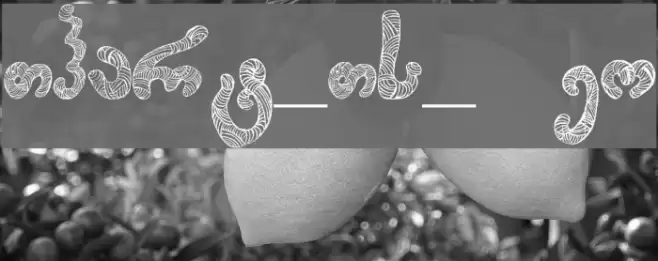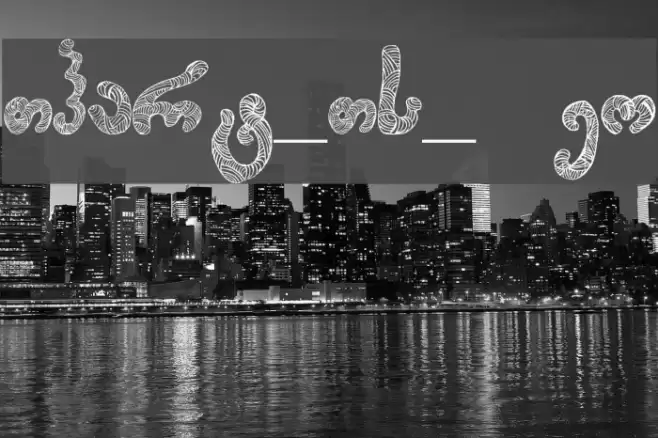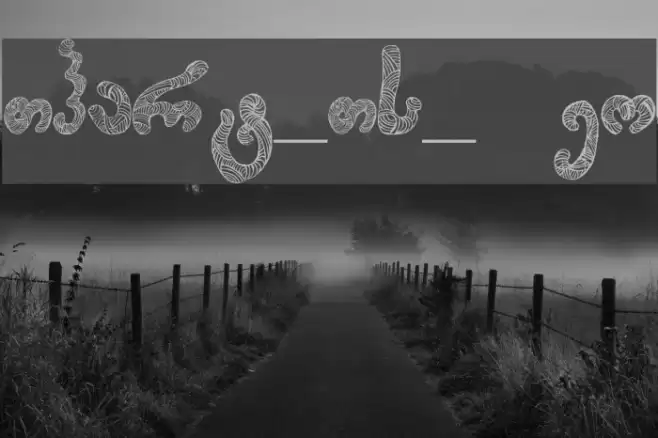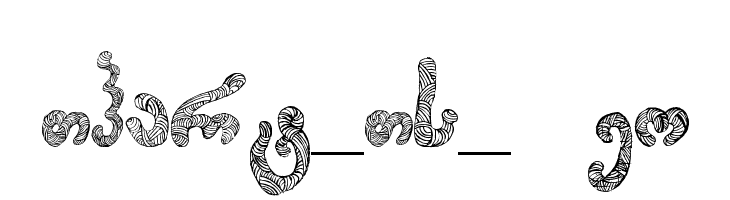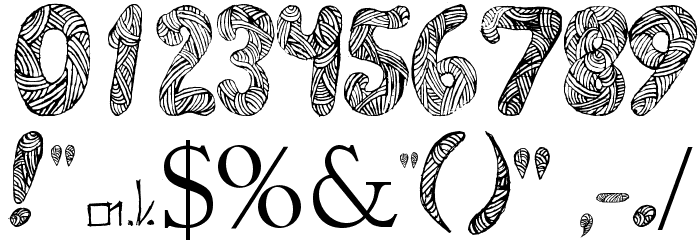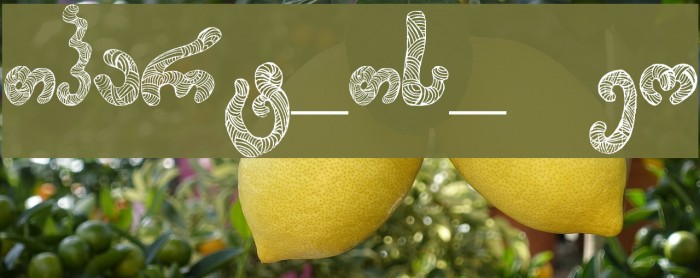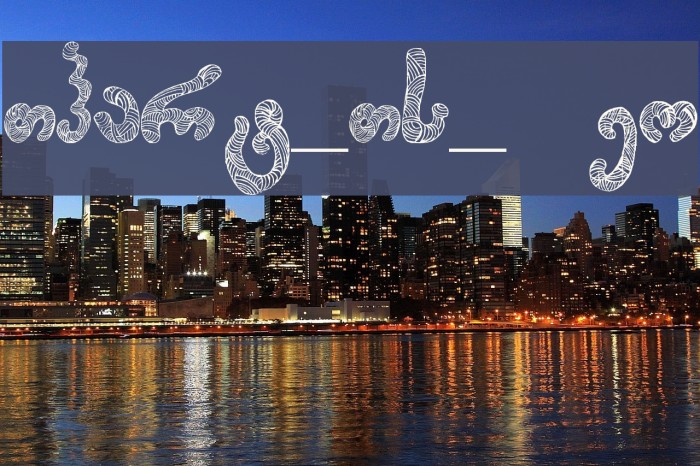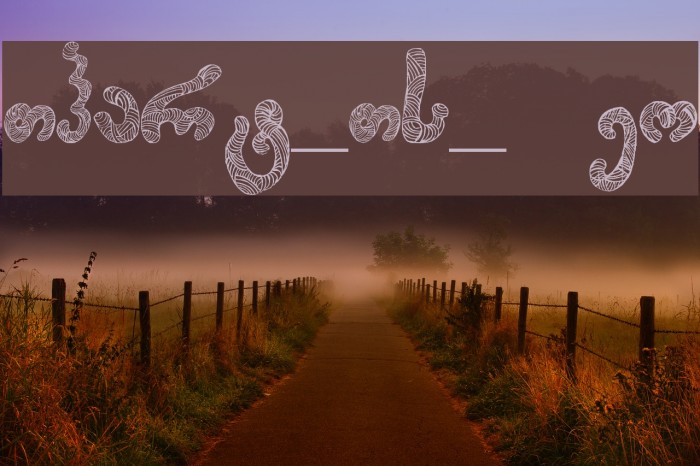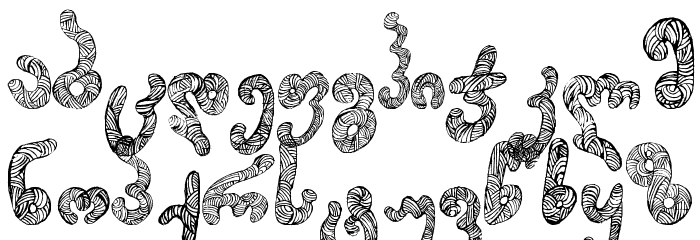
Thart_Ts_Geo Font
Thart_Ts_Geo Description
This font features a highly decorative and artistic style, characterized by intricate line patterns within each character. The letters and numbers are filled with swirling, leaf-like designs that give a textured, hand-drawn appearance. This unique style creates a sense of movement and complexity, making it stand out as a display font. The characters are bold and have a consistent thickness, with a playful and whimsical feel. The font includes a full set of uppercase and lowercase letters, numbers, and a variety of special characters, all maintaining the same decorative theme. The overall look is both modern and artistic, suitable for creative projects that require a distinctive and eye-catching typeface.
A decorative font with intricate, swirling line patterns within each character from Uncategorized fonts.
- Proposed Projects: Ideal for artistic posters, creative branding, unique invitations, and decorative headings.
- Overall Style: Artistic, Modern, Decorative